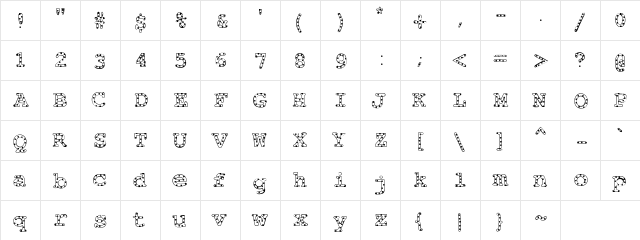
AlphabeticSprinkles Medium
Design Context for AlphabeticSprinkles Typeface
AlphabeticSprinkles is a composed and adaptable typeface that performs quietly and consistently across a wide range of design contexts.